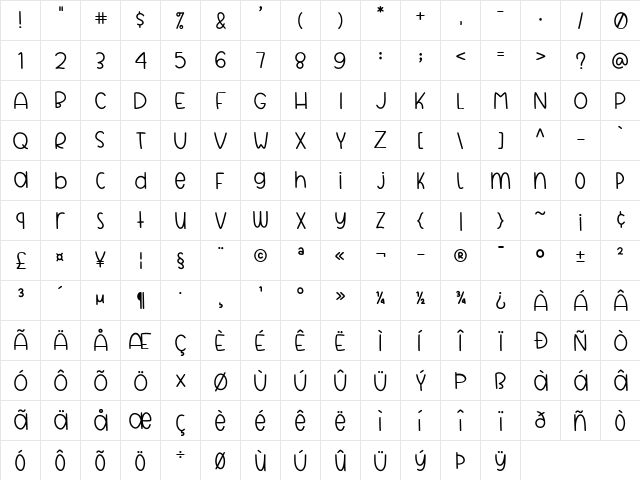
BigBoy Regular
| Foundry | Emylia Maratta |
| Designer | Emylia |
Design Context for BigBoy Typeface
BigBoy takes a measured approach to typography — its balanced proportions and neutral character make it a reliable workhorse for both digital and print work.